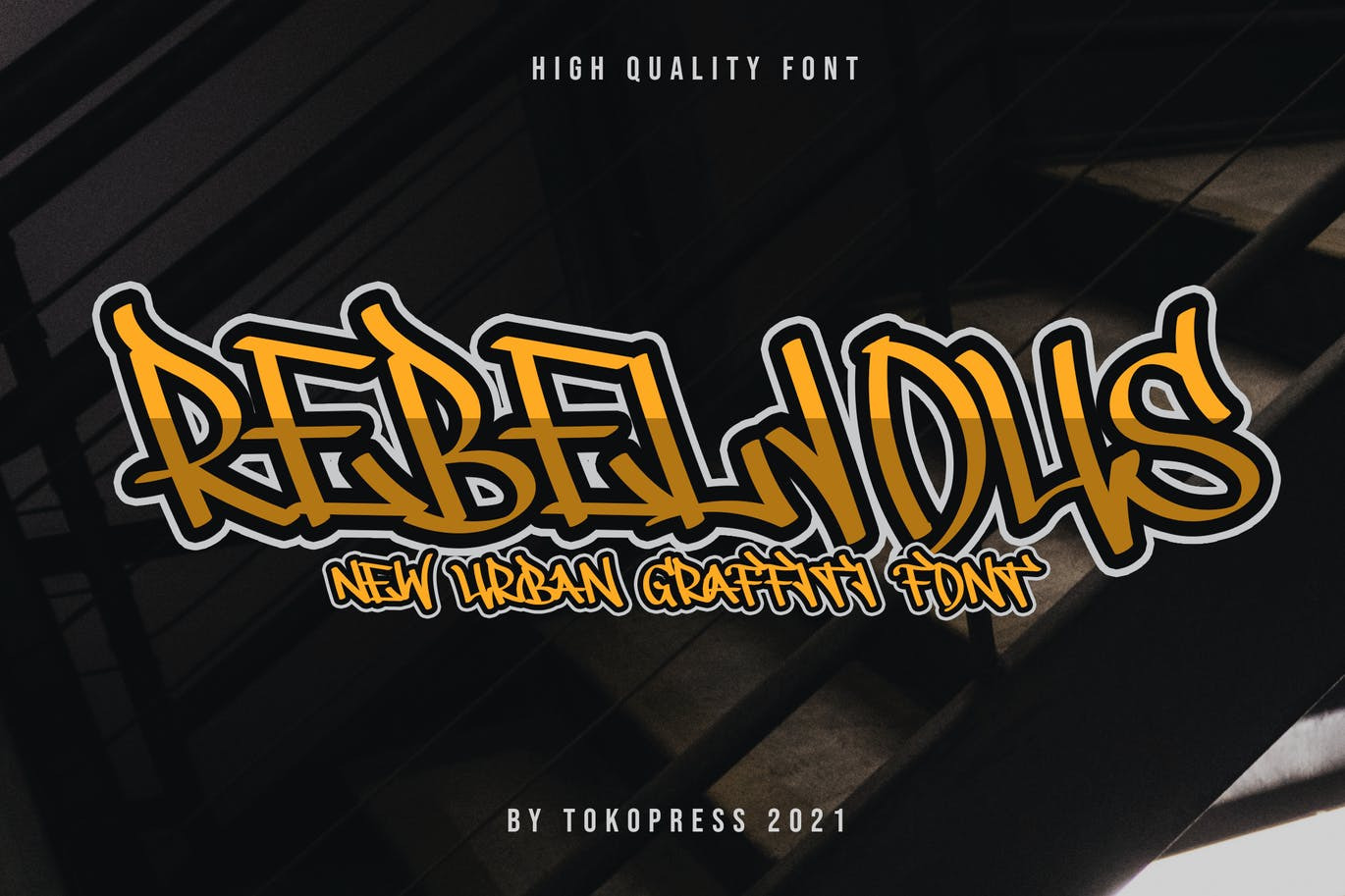
REBELIOUS - Powerful Graffiti font
REBELIOUS - powerful graffiti font
Go urban and ready to hit the street with style.
Suit perfectly for hip-hop, rebellious and extreme sport segmented magazines, posters, movie titles, music posters, youtube covers, youtube thumbnails, social media page covers and so on...